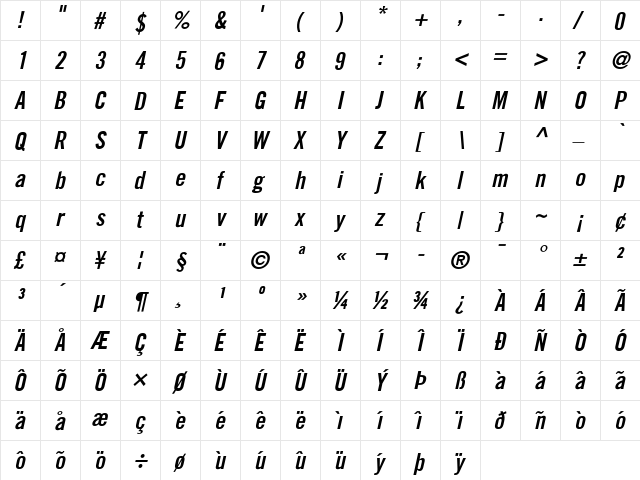
TradeGothic CondEighteen Bold Italic Font Preview
Design Context for TradeGothic CondEighteen Typeface
TradeGothic CondEighteen has the quiet confidence of well-executed sans-serif typography: versatile, unobtrusive, and dependable at any size. The slanted form adds forward momentum and visual energy. Its bold stroke weight gives it real presence on the page. Its narrow stance lets it pack a punch even in space-constrained designs.
Well-suited to navigation labels, product packaging, and anywhere legibility at scale is essential.
Font Pairing: Use TradeGothic CondEighteen for headlines alongside a lighter-weight sans or serif for body copy to establish clear visual hierarchy.
Pro Tip: Use TradeGothic CondEighteen tightly set in headlines and banners — its condensed proportions make it ideal for maximum impact in minimum horizontal space.